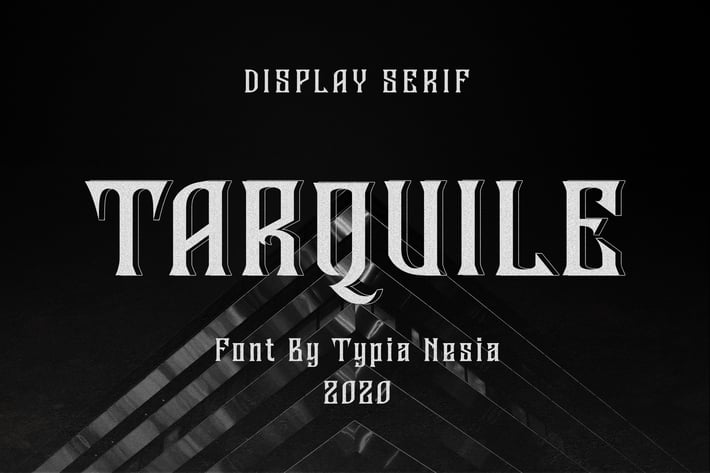
Tarquile - Game Display Font
Tarquile - Game Font - Display Serif.
Tarquile is handcrafted vintage display font. It can be used in different purposes: lettering and logotype, labels, t-shirts, product packaging, invitations, advertising, and any classic / vintage typography design projects.